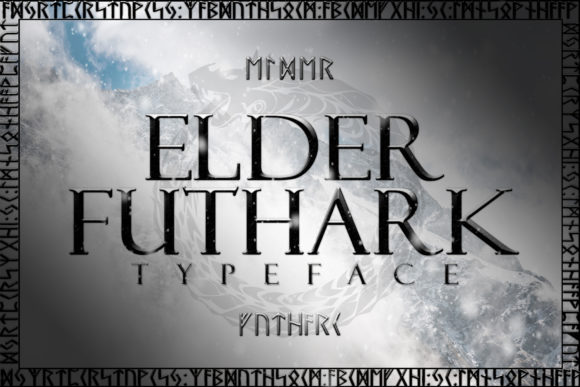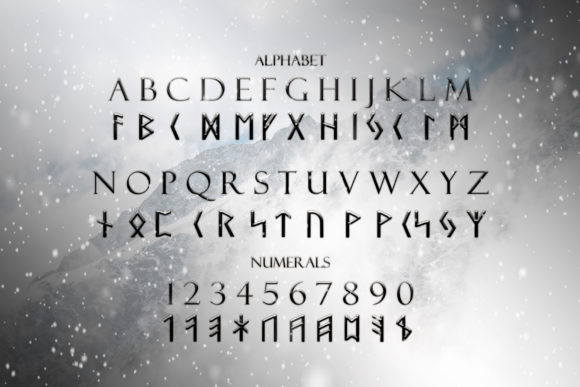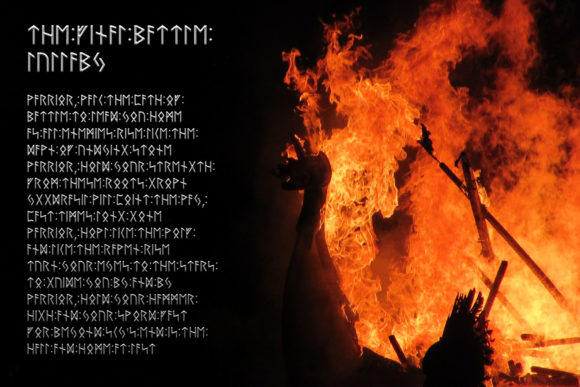
Elder Futhark Font
About the Elder Futhark Font
Make a bold statement with Elder Futhark Font, a powerful and memorable font. Elder Futhark typeface is a unique font based on the oldest form of the runic alphabet. It was a writing system used by Germanic tribes. Runic inscriptions are found on artifacts, including jewelry, amulets, tools, weapons, and, of course, runestones, from the 2nd to the 8th centuries. This typeface is perfect for logos, monograms, titles, and posters.
The typeface is not a translator as such but based on my research, I have made these runes match the Roman alphabet with quite some accuracy.
Its strong, angular forms lend themselves well to projects requiring a sense of history and gravitas. Ideal applications include logos for heritage brands, titles for historical documentaries, or posters for events with an ancient or mystical theme. Avoid using it for body text; its distinctive character is better suited for short, impactful statements.
Elder Futhark’s inherent boldness pairs well with clean sans-serif fonts like Helvetica or Open Sans for a contemporary contrast, or with a more traditional serif like Garamond for a classic, balanced feel. Pairing it with a script font could create an interesting juxtaposition, depending on the desired effect.
The overall personality is authoritative and bold, yet retains a sense of ancient mystery. It is best suited for brands conveying strength, tradition, or a connection to the past.
Elder Futhark Font Usage Examples
Elder Futhark Font Example